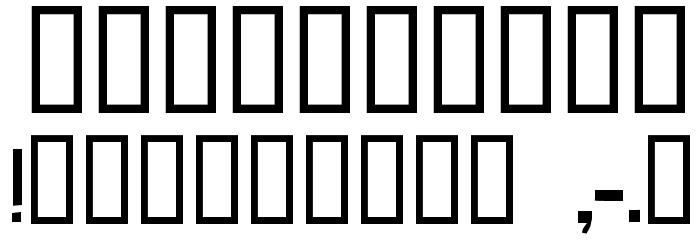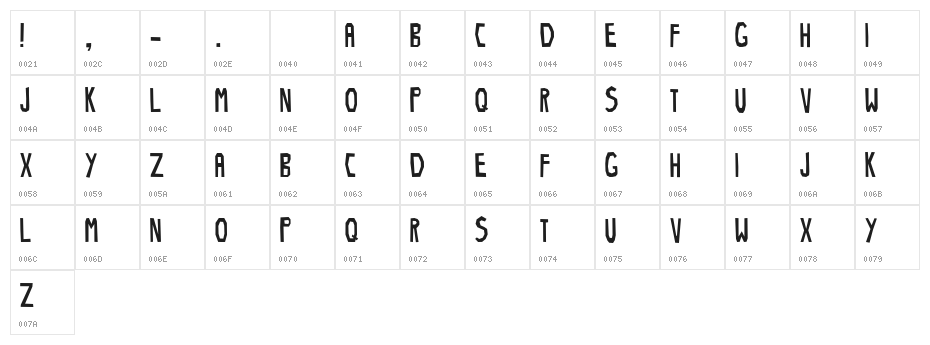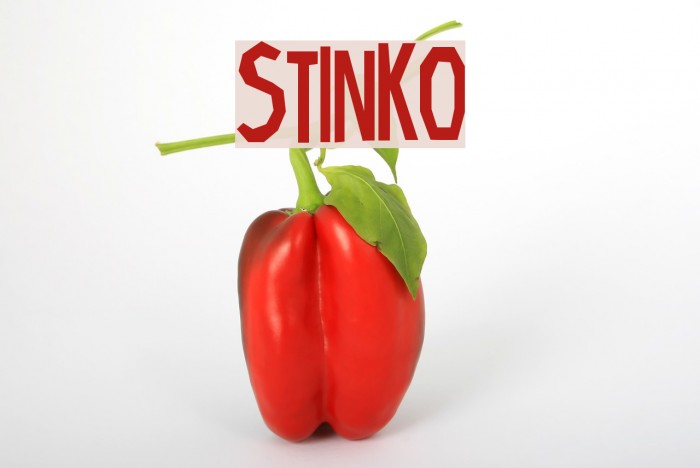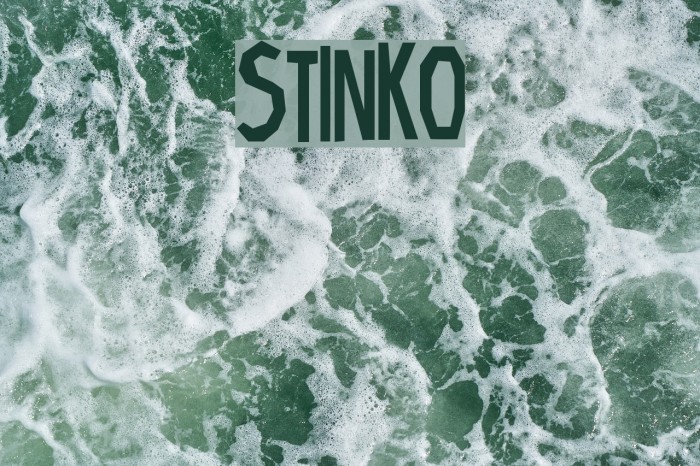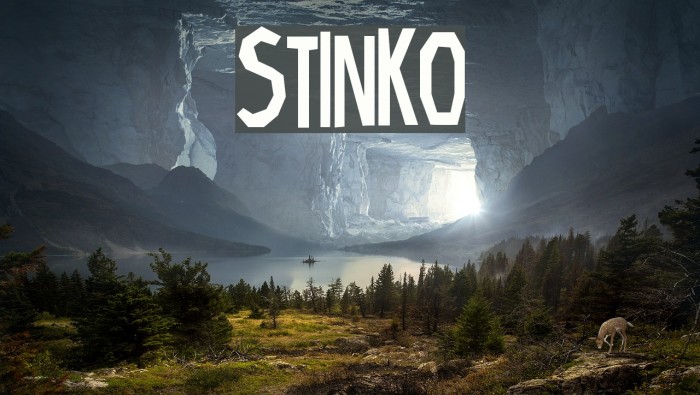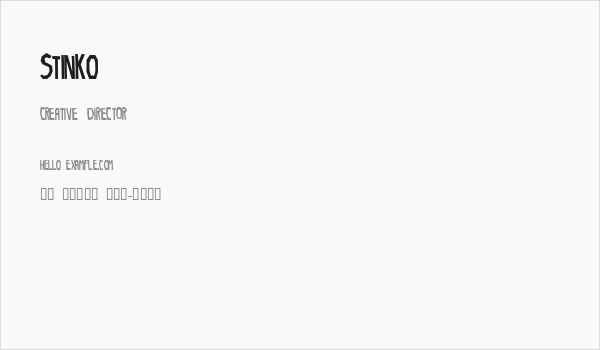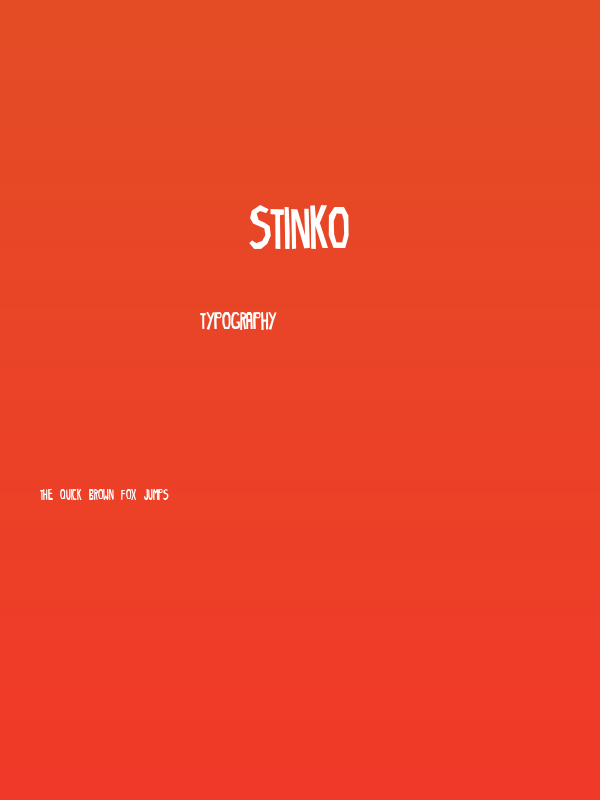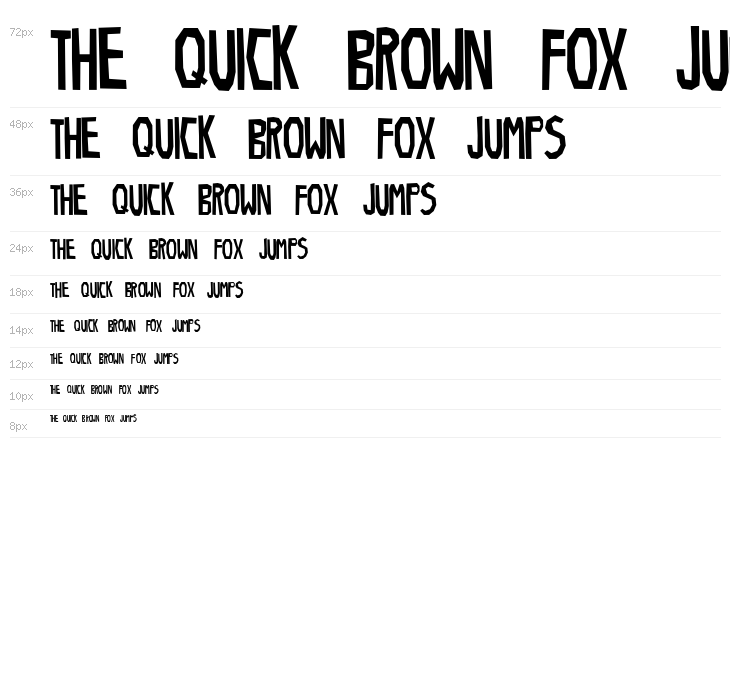
Stinko Font
Stinko Description
This font features a bold and angular design, characterized by its sharp edges and geometric shapes. The uppercase letters are distinct with a blocky appearance, giving a strong and impactful look. The font maintains a consistent stroke width throughout, contributing to a uniform and cohesive style. The absence of curves and the presence of straight lines and angles create a modern and edgy aesthetic. The characters are tightly spaced, enhancing the compact and robust feel of the typeface. This font is well-suited for projects that require a bold statement or a futuristic vibe.